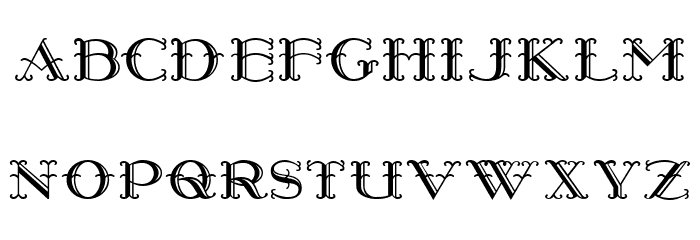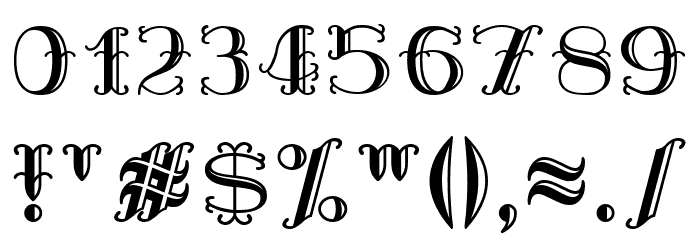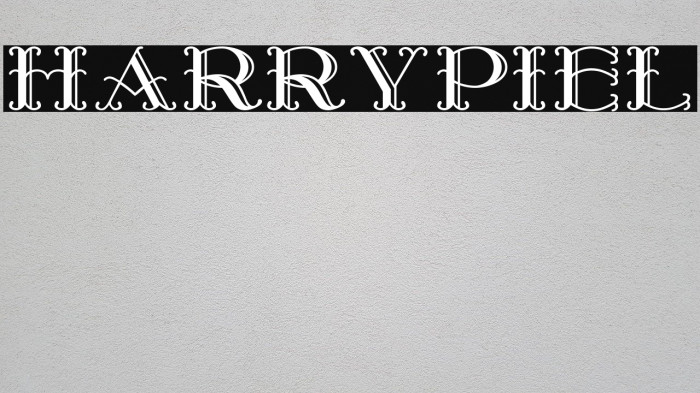
HarryPiel Font
This font exhibits a highly decorative and ornate style, characterized by intricate flourishes and embellishments on each character. The uppercase and lowercase letters maintain a consistent design, with elaborate loops and swirls that give it a unique, vintage feel. The numerals and special characters follow the same ornate pattern, ensuring uniformity across the typeface. The overall appearance is reminiscent of Victorian-era typography, making it suitable for projects that require a touch of elegance and sophistication.
An ornate, decorative font with intricate flourishes and a vintage style.
- Proposed Projects: Ideal for wedding invitations, luxury branding, vintage-themed posters, and decorative book covers.
- Overall Style: Vintage
- Use Case: Logos, Headlines, Decorative text